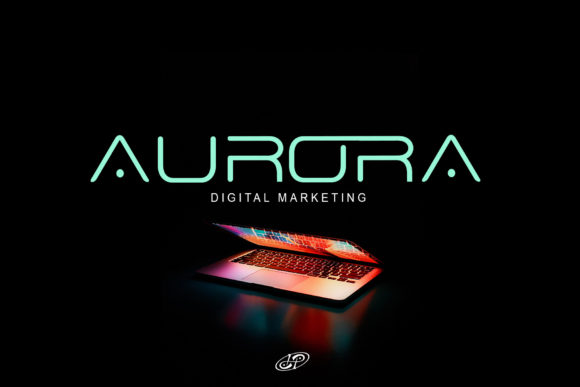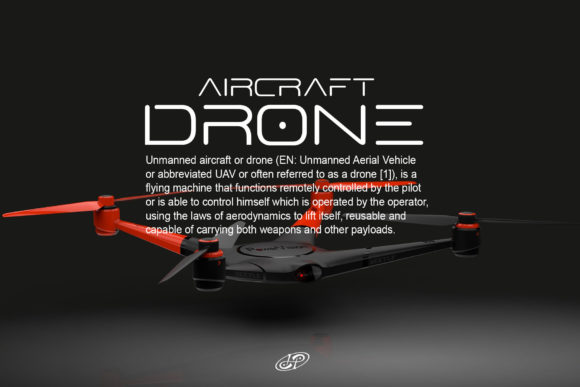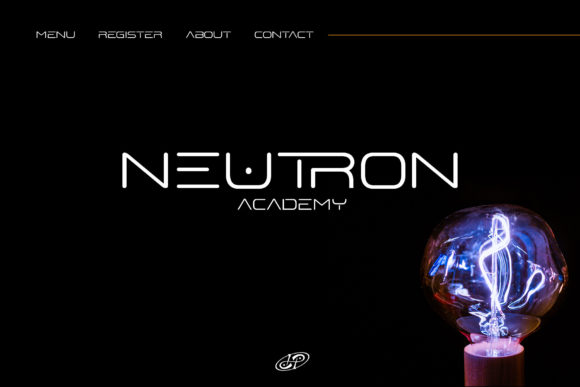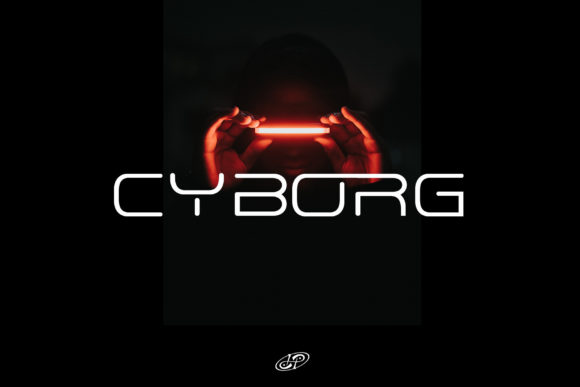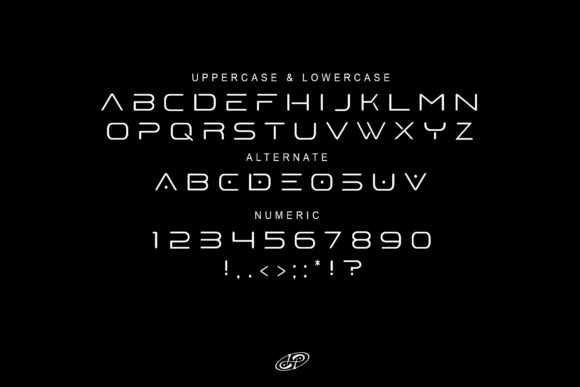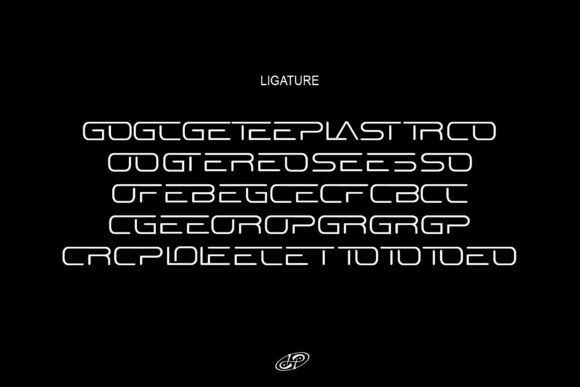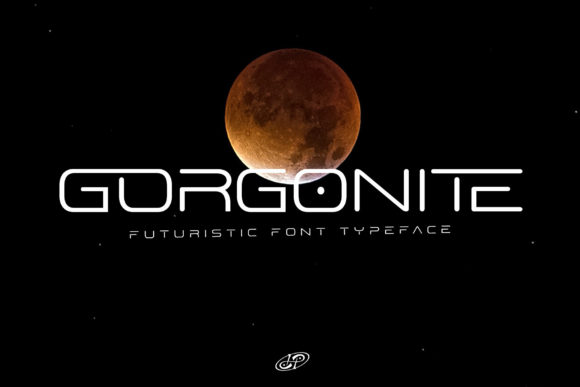
Gorgonite Font: A Futuristic Display Font for Unique Designs
In the world of typography, fonts play a crucial role in conveying the tone and personality of a design. For designers and crafters looking to add a touch of futurism and uniqueness to their work, the Gorgonite font is an excellent choice. This cool, futuristic display font is ideal for writing web designs, business cards, or pretty much anything else that requires a distinctive touch.
What is Gorgonite Font?
Gorgonite font is a modern, sans-serif typeface that boasts a sleek and futuristic aesthetic. Its unique design features make it perfect for headlines, titles, and short texts that require a bold and eye-catching appearance. The font’s geometric shapes and clean lines give it a technological feel, making it an excellent fit for designs that require a sense of innovation and forward-thinking.
Key Features of Gorgonite Font
- Unique and Futuristic Design: Gorgonite font features a one-of-a-kind design that sets it apart from other fonts. Its futuristic look makes it perfect for designs that require a sense of cutting-edge technology and innovation.
- Highly Legible: Despite its futuristic design, Gorgonite font is highly legible, making it suitable for use in a variety of design applications, from digital screens to print materials.
- Versatile: Gorgonite font is a versatile typeface that can be used in a range of design contexts, from web designs and business cards to posters and social media graphics.
- Easily Customizable: The font is easily customizable, allowing designers to adjust its size, color, and style to fit their design requirements.
Use Cases for Gorgonite Font
Gorgonite font is an excellent choice for a variety of design applications, including:
- Web Design: Use Gorgonite font to create bold and eye-catching headlines, titles, and CTAs that grab users’ attention and set your website apart from the competition.
- Business Cards: Add a touch of futurism and sophistication to your business cards with Gorgonite font, making them stand out in a crowded market.
- Social Media Graphics: Use Gorgonite font to create engaging and shareable social media graphics that showcase your brand’s personality and style.
- Posters and Flyers: Gorgonite font is perfect for creating bold and attention-grabbing posters and flyers that promote your brand, product, or service.
Tips for Using Gorgonite Font
To get the most out of Gorgonite font, follow these tips:
- Use it Sparingly: Gorgonite font is a bold and attention-grabbing typeface, so use it sparingly to avoid overwhelming your design.
- Pair it with Other Fonts: Combine Gorgonite font with other fonts to create visual interest and add depth to your design.
- Experiment with Colors: Gorgonite font looks great in a range of colors, so experiment with different hues and shades to find the perfect fit for your design.
Gorgonite font is a unique and futuristic display font that adds a touch of innovation and sophistication to any design. Its versatility, legibility, and customizability make it an excellent choice for designers and crafters looking to create bold and eye-catching designs. Whether you’re designing a website, business card, or social media graphic, Gorgonite font is sure to make your design stand out from the crowd.